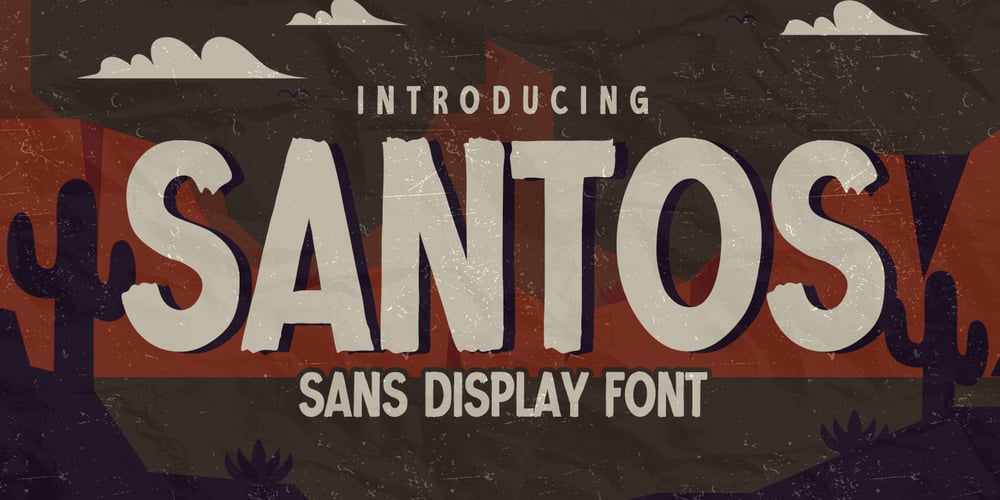
Santos
Santos font
Santos Font Family was designed by Abdul Malik Wisnu, Anang Fibriyanto and published by Gassstype. Santos contains 1 styles and family package options. Here comes a New font, Introducing SANTOS It’s Sans Display Font is a Textured Natural Style and Authentic Classy Style, this font is great for your creative projects such as watermark on photography, and perfect for logos & branding, invitation,advertisements,product designs, stationery, wedding designs,label ,product packaging, special events or anything that need handwritting taste.SANTOS is a vintage natural Hand Drawn feel. This handmade font will make your design has a beautiful natural touch for each details.